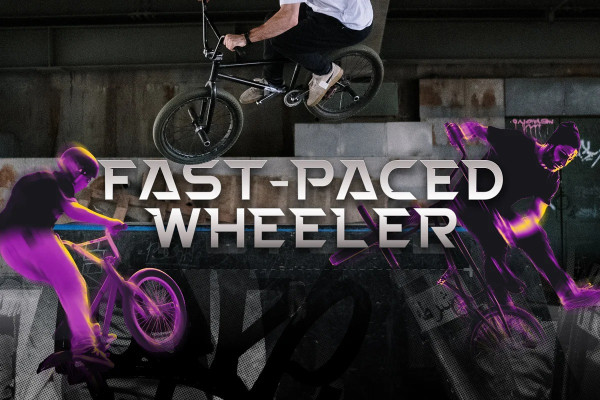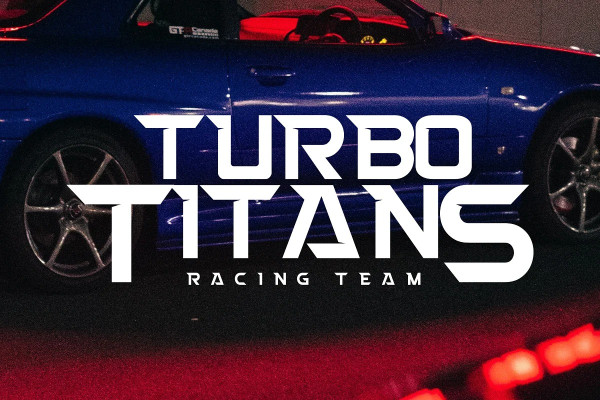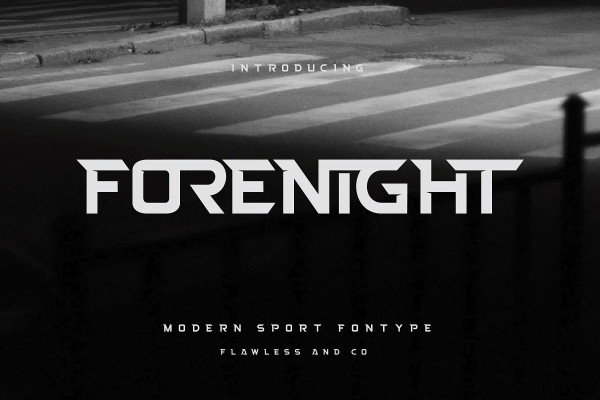
Forenight Futuristic Font
Forenight Futuristic Font, a dynamic and modern sport font designed to capture the spirit of athleticism and energy. With its bold and sleek letterforms, Forenight brings a sense of power and movement to your sports-related designs. This font is suitable for branding, business, logos, magazines, and others.